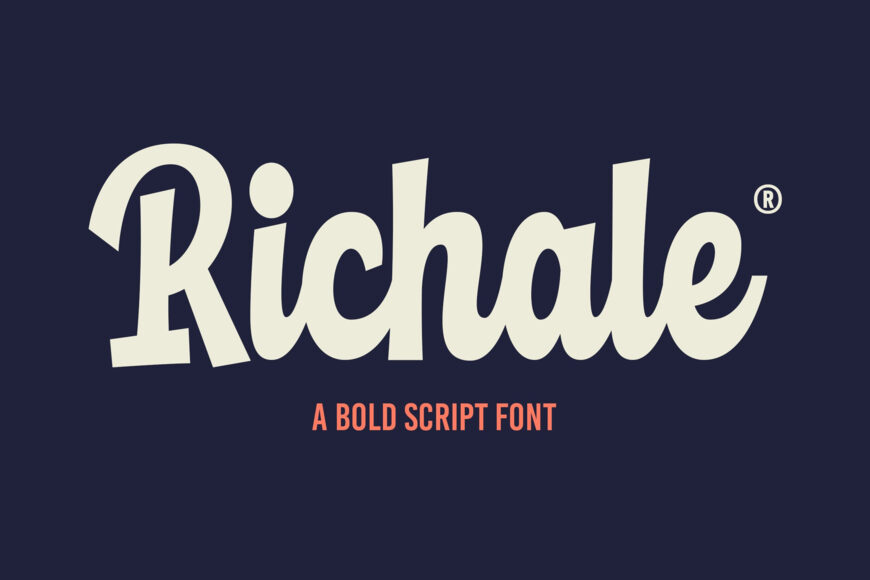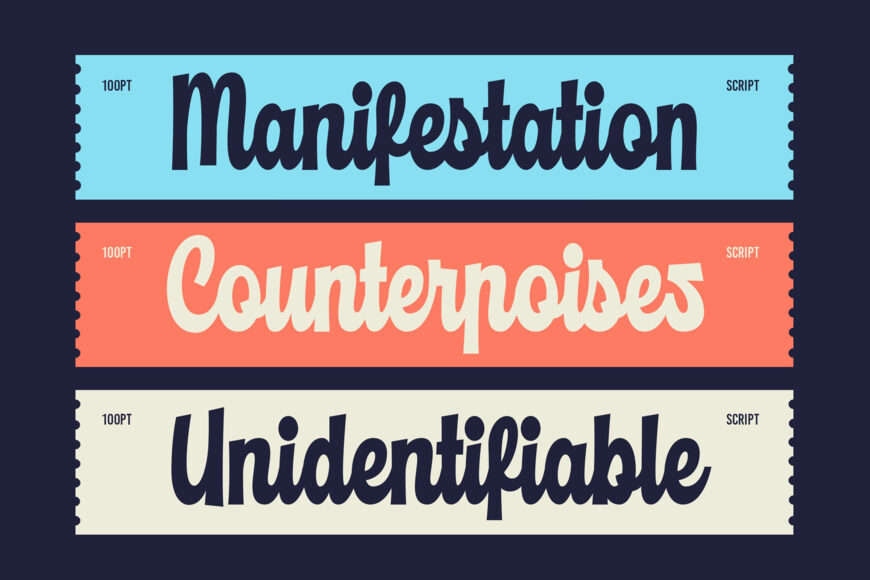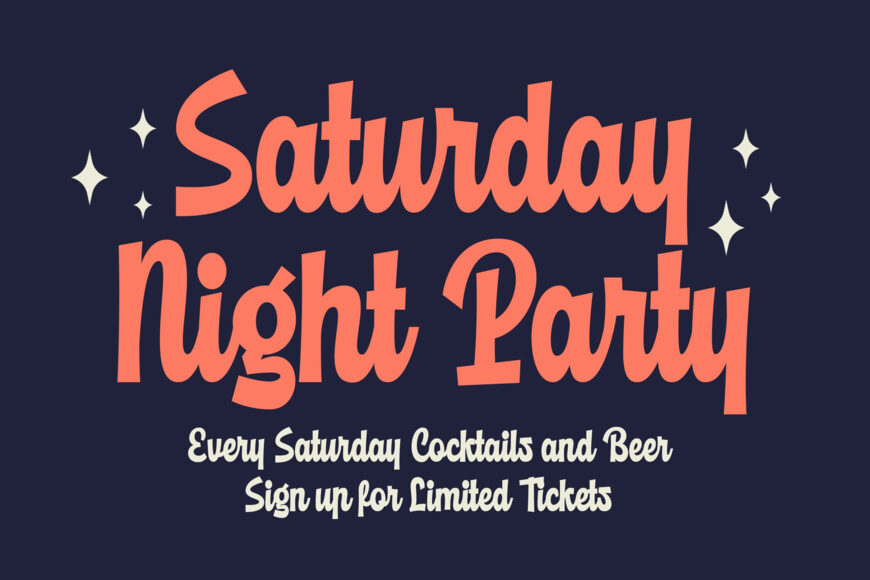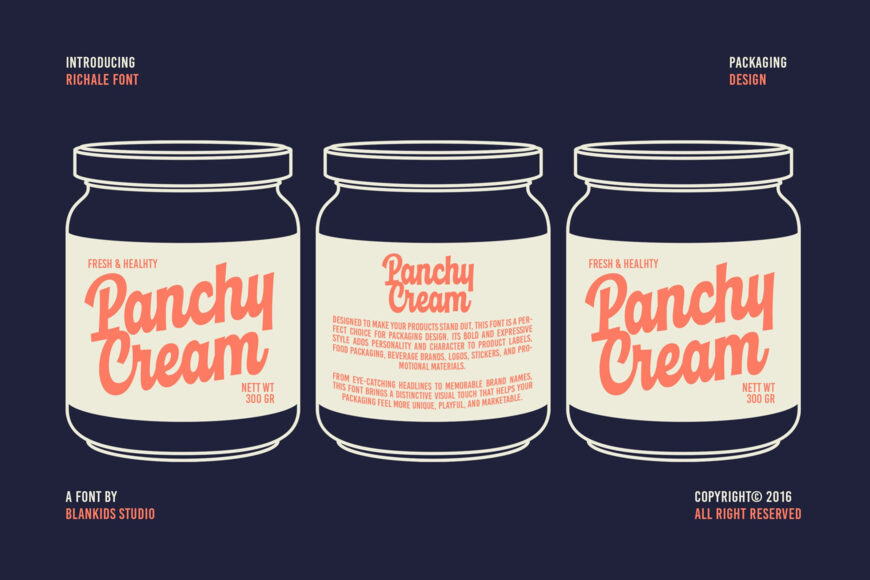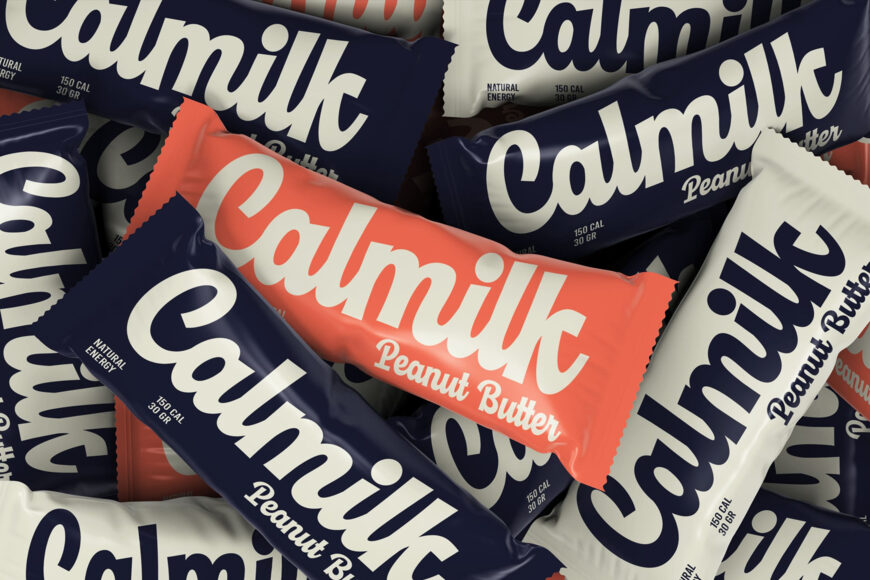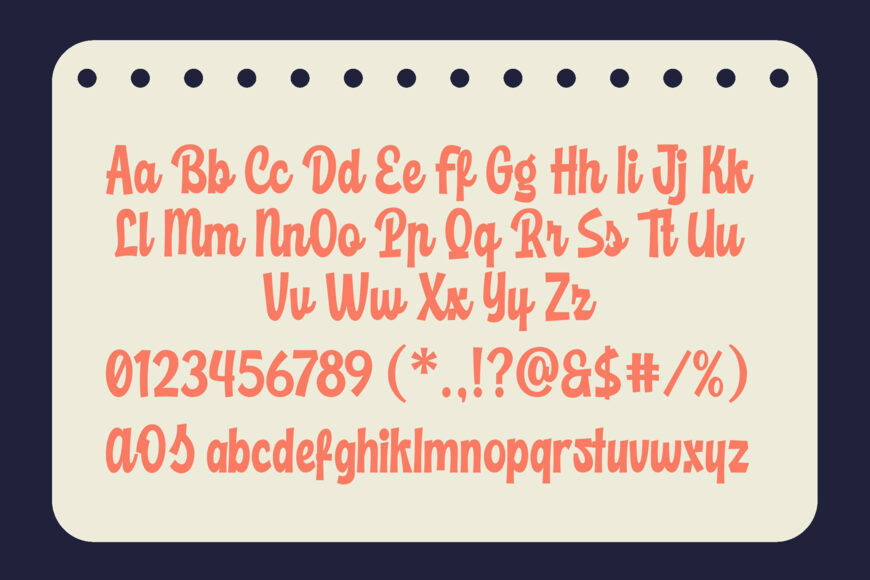
Richale Font
Richale is a bold and expressive script font inspired by the energetic spirit of retro lettering and vintage advertising. With its chunky strokes, playful curves, and distinctive hand-lettered character, Richale brings a strong personality to every design.
Designed to make words stand out, Richale works beautifully for branding, packaging, food & beverage products, labels, posters, signage, apparel, logos, social media graphics, and advertising materials.